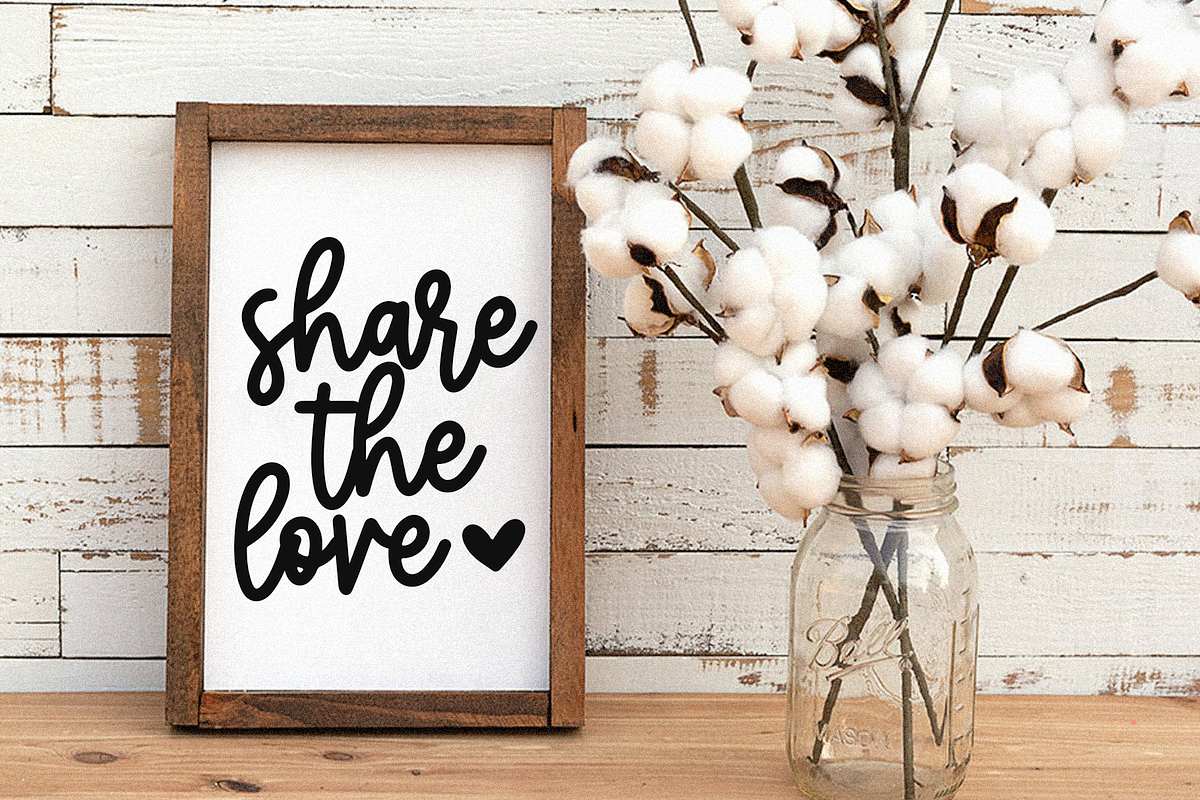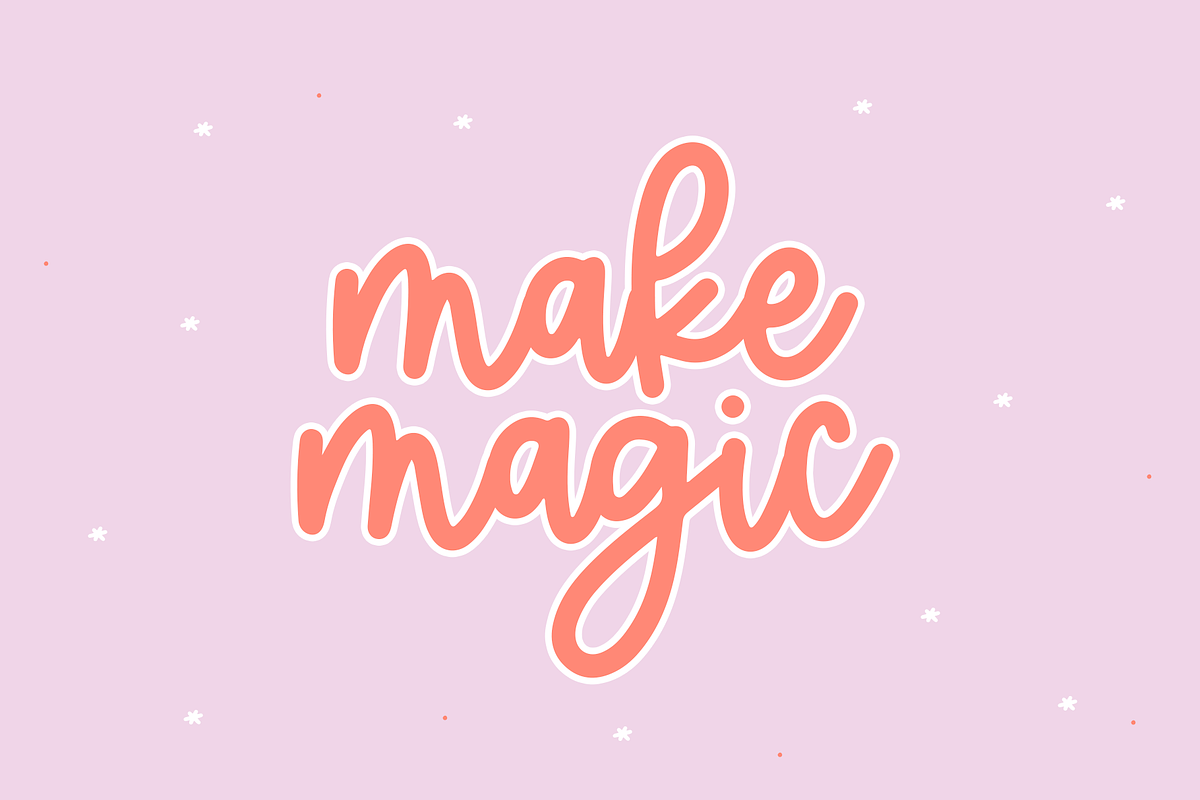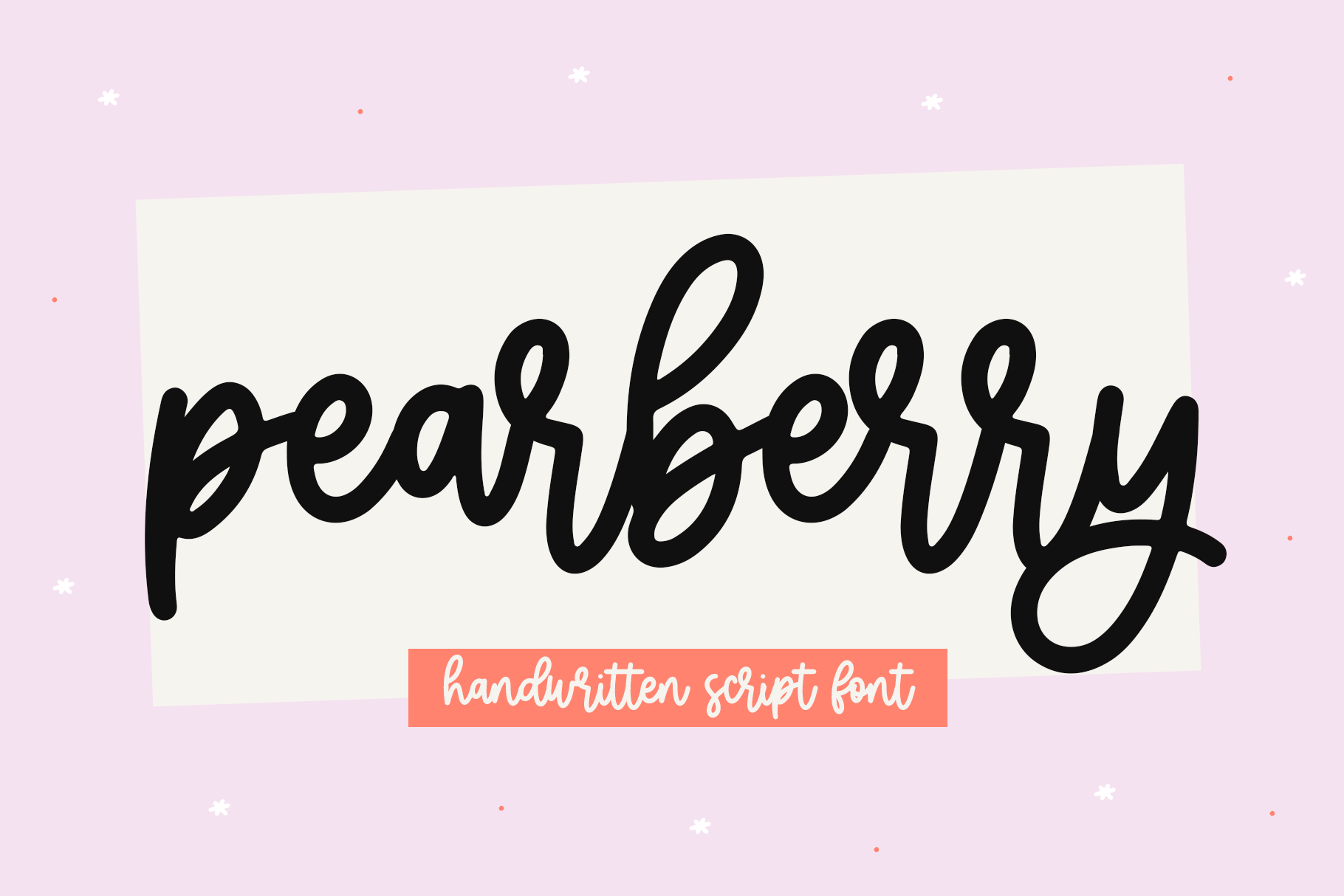
Pearberry | Handwritten Script Font
Pearberry is a cute handwritten script font!
This font is perfect for all of your craft projects, branding, quotes, prints, logos, social media , kid's decor, clothing, svg designs and more!